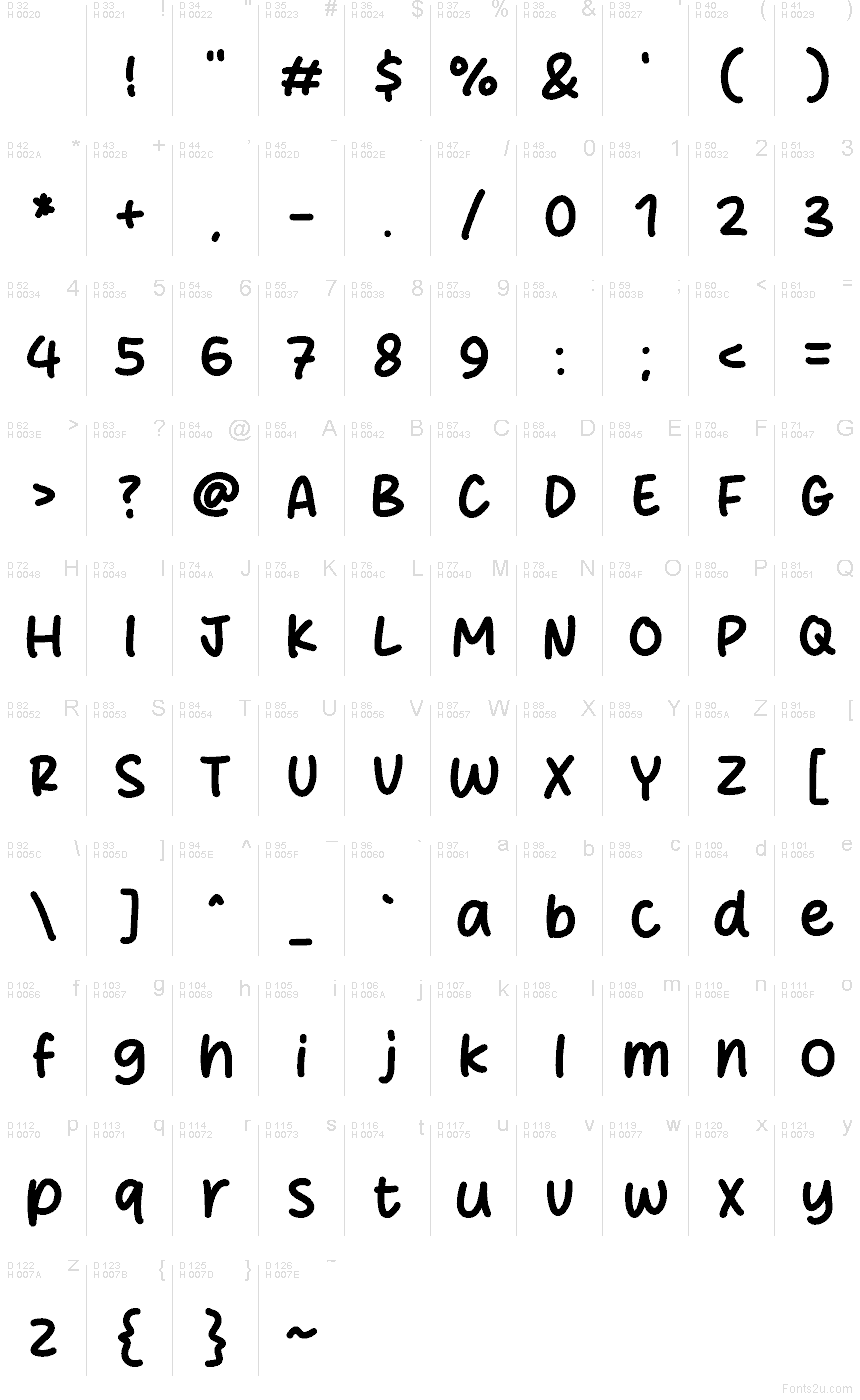
Welcome Darling
Welcome Darling font by MJType is a free handwritten typeface that feels like a warm note scribbled with a favorite marker. The strokes are smooth, rounded, and just a bit bouncy, giving words a cozy, approachable tone without looking messy or chaotic. Letters tuck neatly into each other, so even at larger sizes your text feels unified, friendly, and easy to read.
Using Welcome Darling, this free font shines on greeting cards, kids’ book covers, classroom posters, product packaging, Instagram quotes, and playful website banners. Its soft, inky curves instantly add charm and personality wherever you need a human touch. Pair this handwritten typeface with a clean sans serif for small supporting text, and let Welcome Darling handle the bold, welcoming headlines.